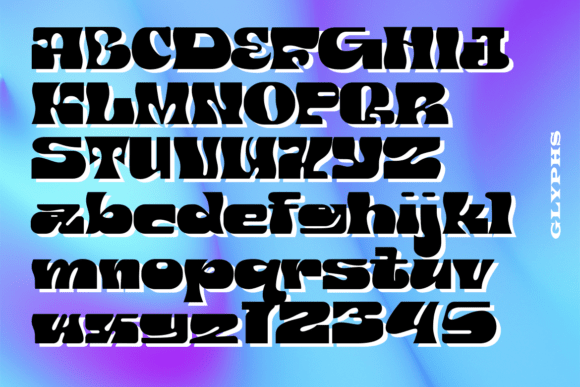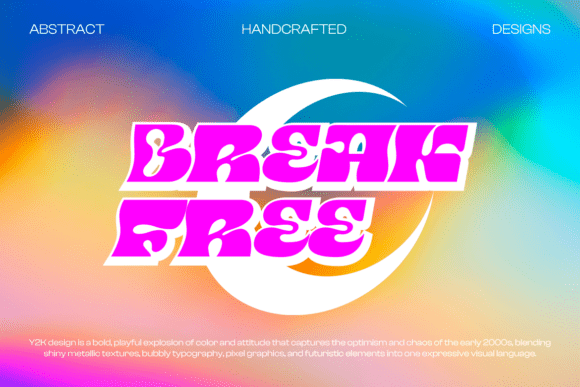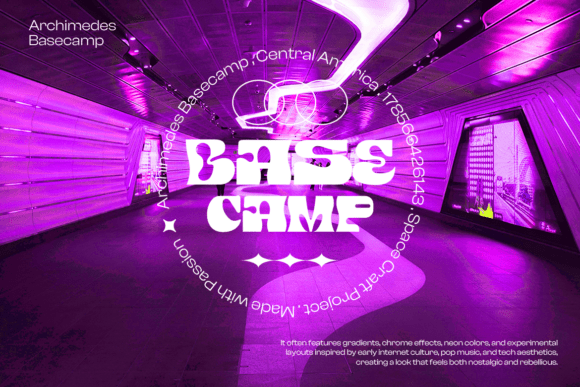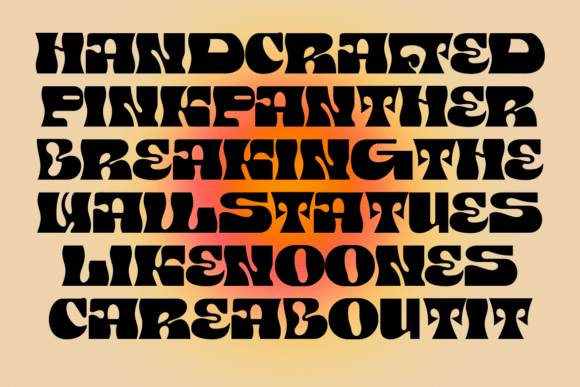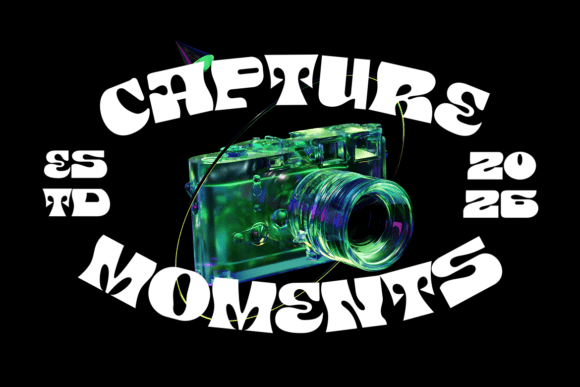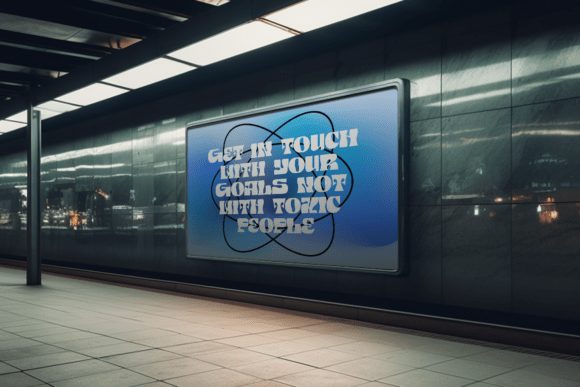
Introducing Bricx Font: The Ultimate Y2K-Inspired Display Font
In the world of typography, fonts play a crucial role in conveying the tone and aesthetic of a design project. For designers and crafters looking to add a touch of nostalgia and playfulness to their work, Bricx Font is an excellent choice. This bold, rounded, and distorted display font is inspired by the early 2000s Y2K era, making it perfect for creative projects that require a strong visual presence.
What is Bricx Font?
Bricx Font is a Y2K-inspired display font that boasts bold, rounded, and distorted letterforms. Its unique design reflects the aesthetics of the early 2000s, characterized by playful proportions, fluid curves, and unconventional shapes. This font is designed to make a statement, making it ideal for large-scale typography such as posters, headlines, branding visuals, album covers, experimental layouts, and digital graphics.
Key Features of Bricx Font
- Bold and Distorted Letterforms: Bricx Font features bold and distorted letterforms that give it a unique and playful appearance.
- Rounded Edges: The font’s rounded edges add a touch of softness and friendliness to its overall aesthetic.
- Y2K-Inspired Design: Bricx Font’s design is inspired by the early 2000s Y2K era, making it perfect for designers looking to add a retro-futuristic touch to their work.
- Expressive Character: The font’s expressive character makes it suitable for creative projects that explore retro-futuristic, playful, and abstract visual styles.
Best Use Cases for Bricx Font
Bricx Font is intended for display use, making it perfect for projects that require attention-grabbing text. Here are some of the best use cases for this font:
- Posters and Headlines: Bricx Font is ideal for creating bold and eye-catching posters and headlines.
- Branding Visuals: The font’s unique design makes it perfect for creating memorable branding visuals.
- Album Covers: Bricx Font’s playful and bold aesthetic makes it suitable for album covers and music-related projects.
- Experimental Layouts: The font’s unconventional shapes and distorted letterforms make it perfect for experimental layouts and abstract designs.
- Digital Graphics: Bricx Font is also suitable for digital graphics, such as social media posts, website headers, and more.
Tips for Using Bricx Font
To get the most out of Bricx Font, here are some tips to keep in mind:
- Use it for Display Purposes Only: Bricx Font is intended for display use only, so avoid using it for long body text.
- Experiment with Different Sizes: The font’s bold and distorted letterforms make it perfect for large-scale typography, so experiment with different sizes to find the perfect fit for your project.
- Pair it with Other Fonts: Bricx Font pairs well with other fonts, so don’t be afraid to experiment with different font combinations to create a unique look.
Bricx Font is a unique and playful display font that is perfect for designers and crafters looking to add a touch of nostalgia and playfulness to their work. Its bold, rounded, and distorted letterforms make it ideal for large-scale typography, and its expressive character makes it suitable for creative projects that explore retro-futuristic, playful, and abstract visual styles. By following the tips outlined above, you can get the most out of Bricx Font and create stunning designs that are sure to grab attention.